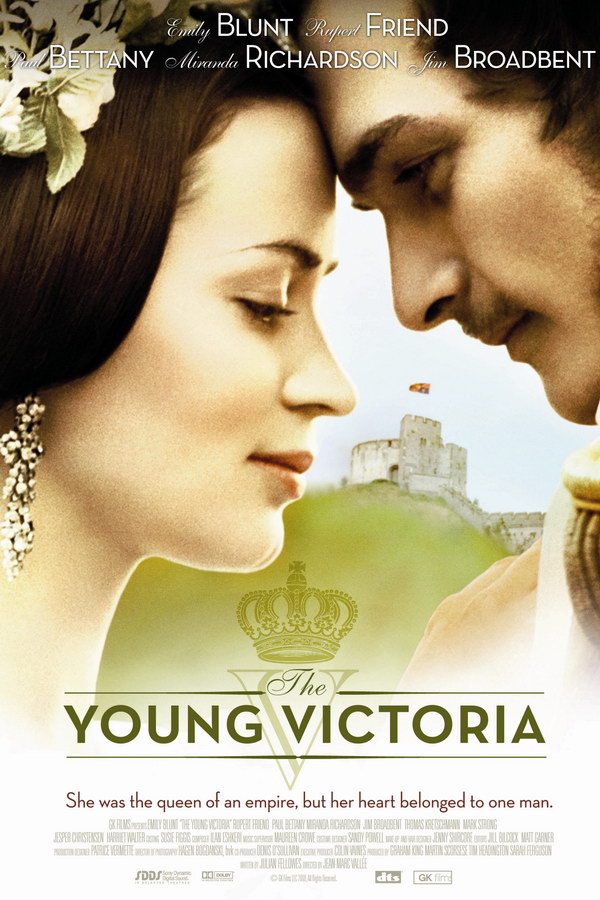
The Young Victoria Font
Fonts in UseThe Young Victoria is a 2009 British-American period drama film directed by Jean-Marc Vallée. It tells the story of Queen Victoria's early reign and her romance with Prince Albert.
It is likely that the movie title features Neutraface, a typeface designed by Christian Schwartz for House Industries. Additionally, the decorative "The" may be set in Shelly Script, an elegant script typeface created by Matthew Carter and inspired by the writings of 18th-century English writing master, George Shelly.